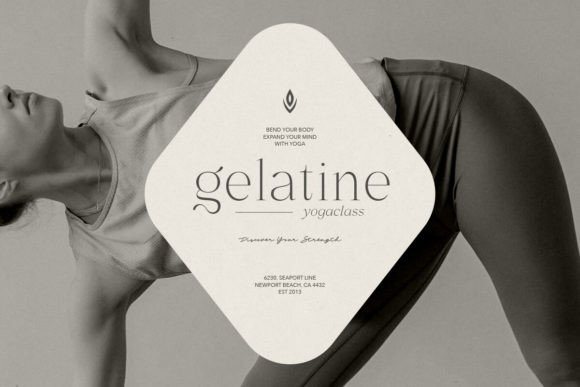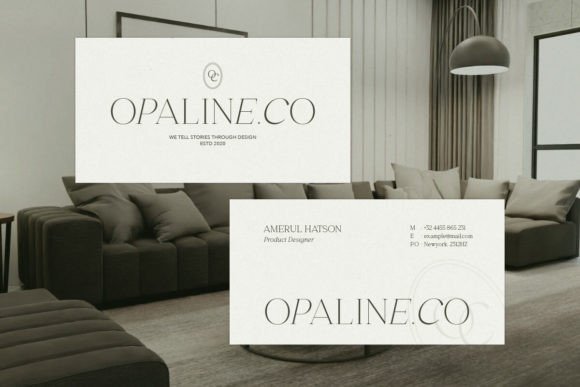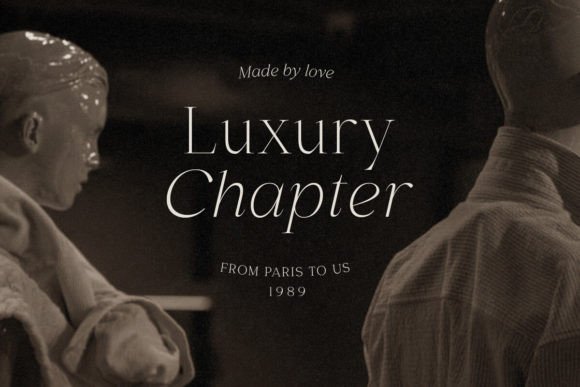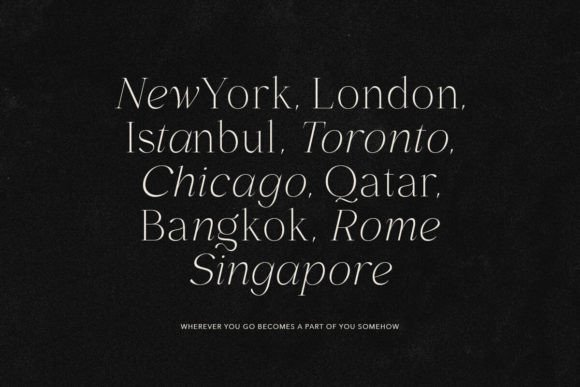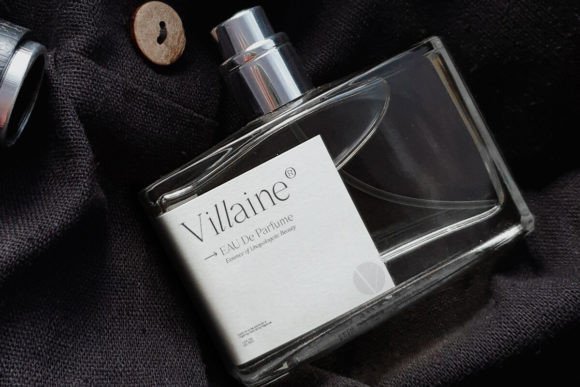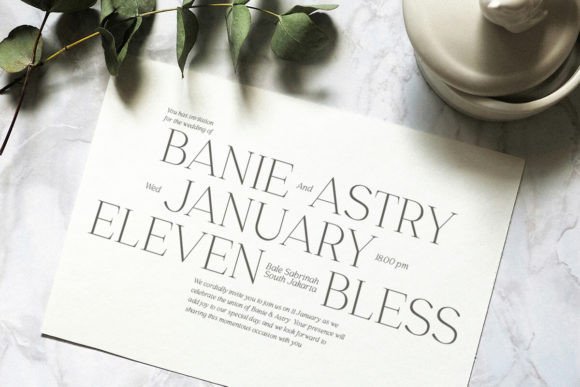
Introduction to Pragmate Font
Have you ever been in the middle of a creative project, staring at a blank canvas or a glowing screen, trying to find the perfect font to bring your idea to life? The struggle is real, especially when you’re looking for a font that’s both classy and casual, versatile and high-quality. This is where the Pragmate Font comes in – a game-changer for designers, and a valuable design resource for any creative project.
As a designer, you know that the right font can make all the difference in setting the tone and style of your work. The Pragmate Font is a stunning example of a well-designed font family, available in two styles: Regular and Italic. Its clean and simple design makes it perfect for branding, quotes, logos, or as a complement to your script fonts.
Key Features of Pragmate Font
- High-quality design: Pragmate Font is a carefully crafted, high-quality design resource ideal for creative projects.
- Transparent background: This font features a transparent background, making it easy to combine with other design elements.
- High-resolution design: With a resolution of 300 DPI, Pragmate Font is perfect for print and digital designs.
- Unique characteristics: Pragmate Font features a unique blend of modern and classic elements, making it a great choice for creative projects.
- Perfect for designers: Whether you’re a professional designer or a student working on a project, Pragmate Font is a valuable design resource.
Honest Review: Pragmate Font
As a designer, I’m always on the lookout for high-quality design resources to elevate my creative projects. Recently, I had the chance to try out the Pragmate Font, and I’m excited to share my honest review.
What works well: ✨ The Pragmate Font is incredibly versatile and suitable for a wide range of design applications, from corporate branding to digital interfaces. Its clean and modern design aesthetic makes it an excellent choice for designers looking to create a professional and polished look.
- High-quality design: The font is crisp and clear, with smooth lines and well-balanced proportions.
- Transparent background: This feature allows for seamless integration with backgrounds and other design elements.
Any limitations: ⚠️ While the Pragmate Font is an excellent addition to any designer’s toolkit, it’s worth noting that it may not be suitable for projects requiring a more distressed or vintage aesthetic. Additionally, the font may not be compatible with older software or operating systems.
Tips for Getting the Most Out of Pragmate Font
For optimal results, use the Pragmate Font in conjunction with a high-quality design resource, such as a transparent background, to create a cohesive and visually appealing design.
The Pragmate Font is ideal for creative projects that require a clean, modern design, such as logos, business cards, and infographics.